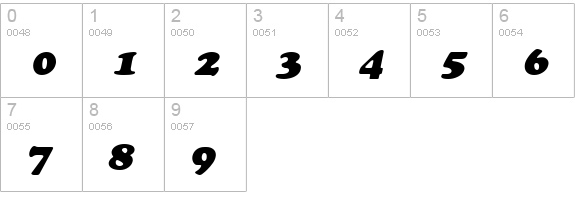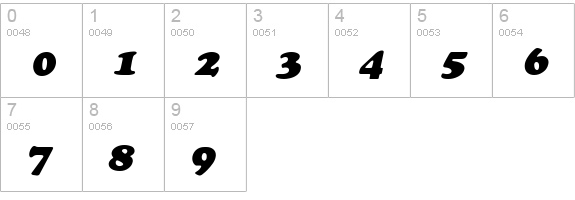
Cupid Italic Font Details
Cupid Italic is a distinctive, italic variant in the Cupid typeface family \xE2\x80\x94 well suited to design and typography projects.
Cupid Italic font is a beautifully designed typeface that exudes elegance and sophistication. Its delicate curves and stylish flourishes make it perfect for adding a touch of romance to any project. Whether you're designing wedding invitations, love letters, or Valentine's Day cards, Cupid Italic font will surely capture hearts with its charming aesthetic. The best part? Cupid Italic font is available for free download at FontsMarket.com. This means you can easily access this lovely font and incorporate it into your designs without any cost. Don't miss out on the opportunity to enhance your creative projects with the enchanting beauty of Cupid Italic font. Download it now and let your creativity soar!